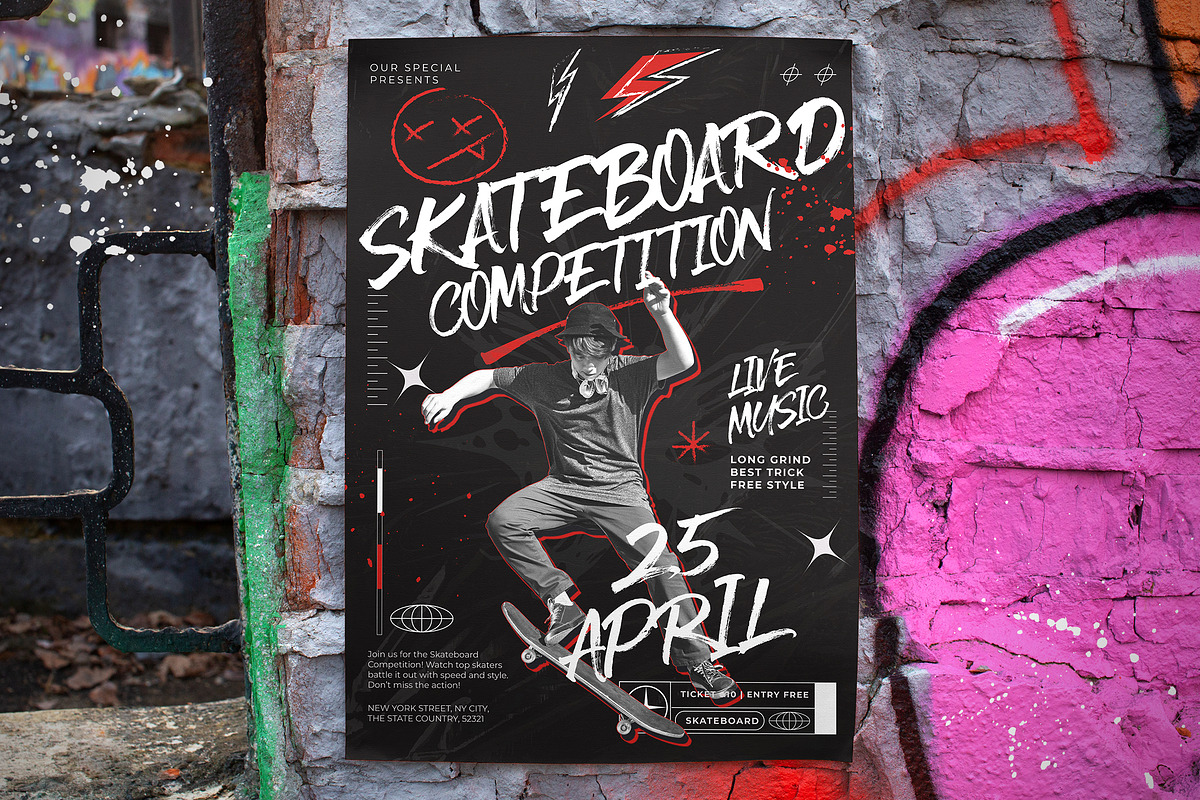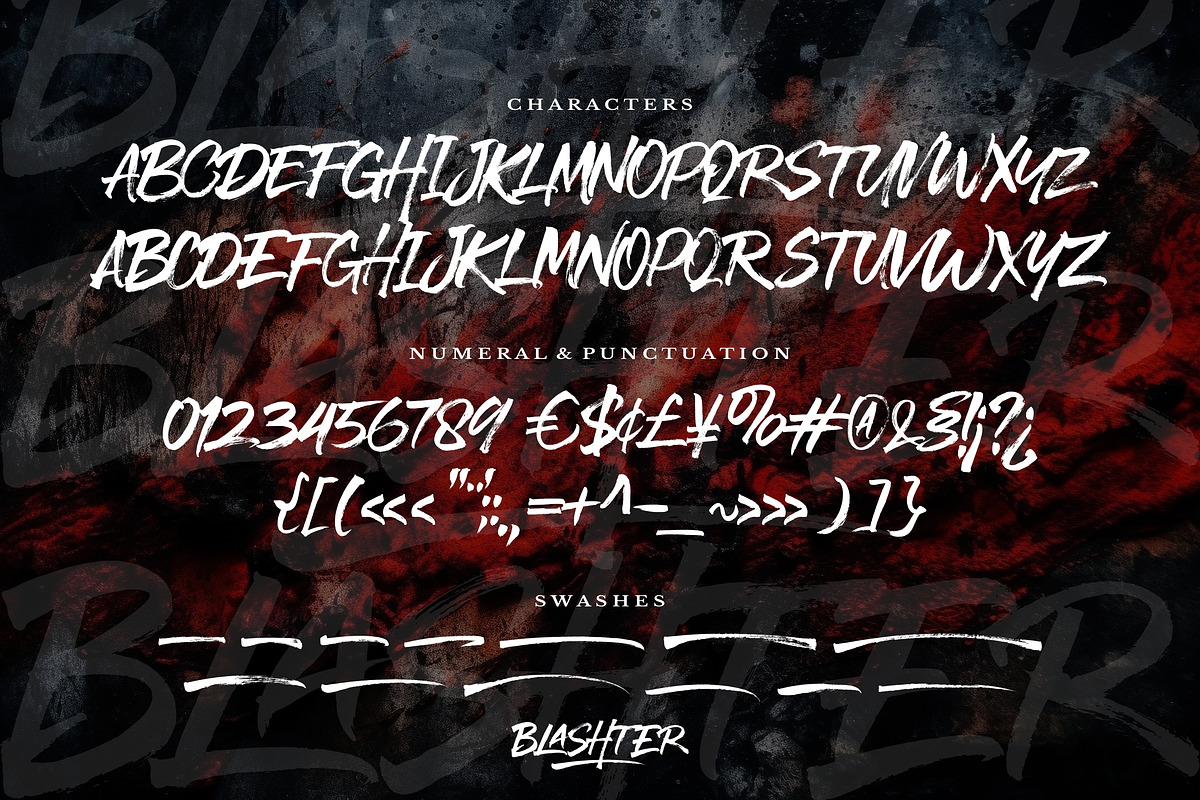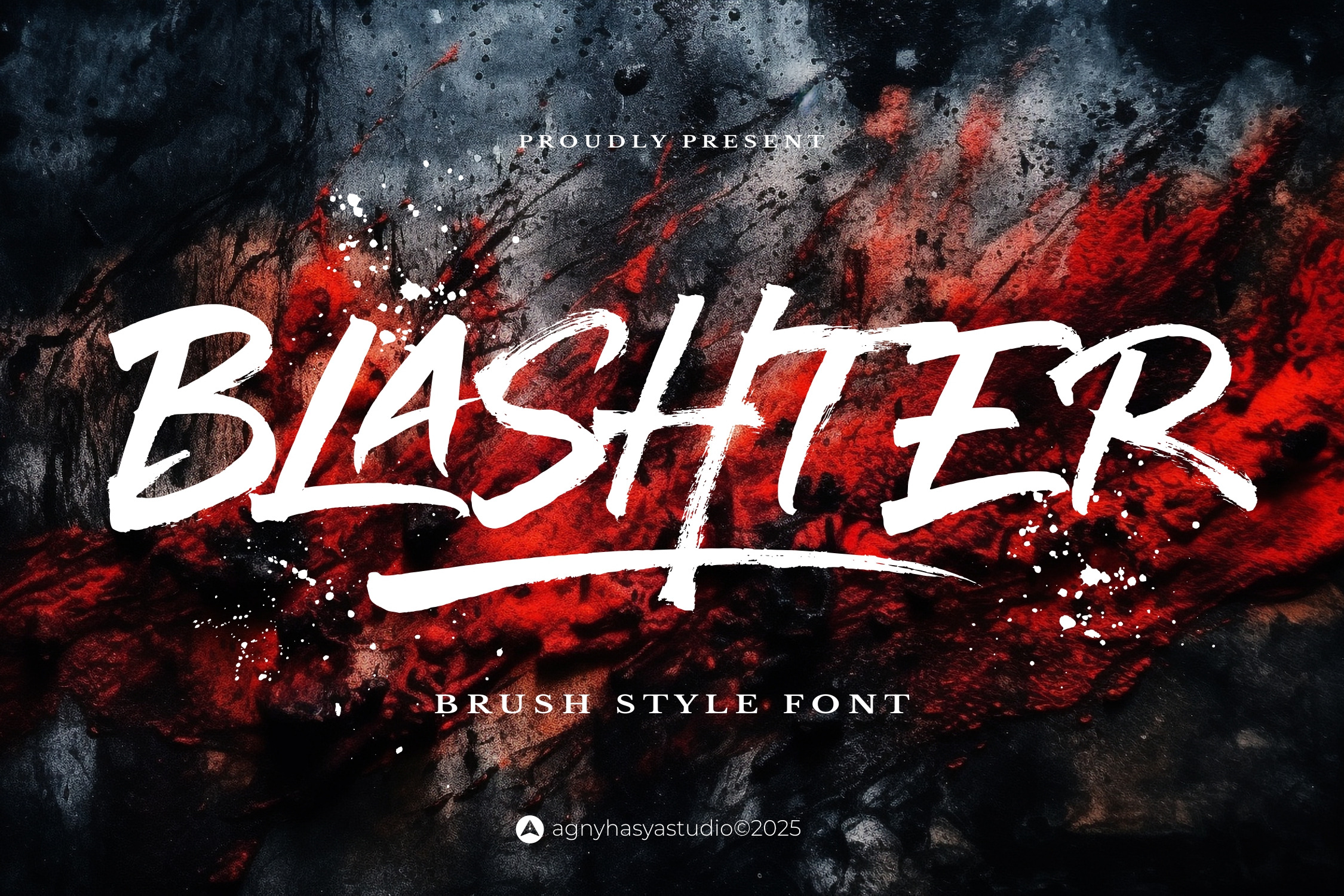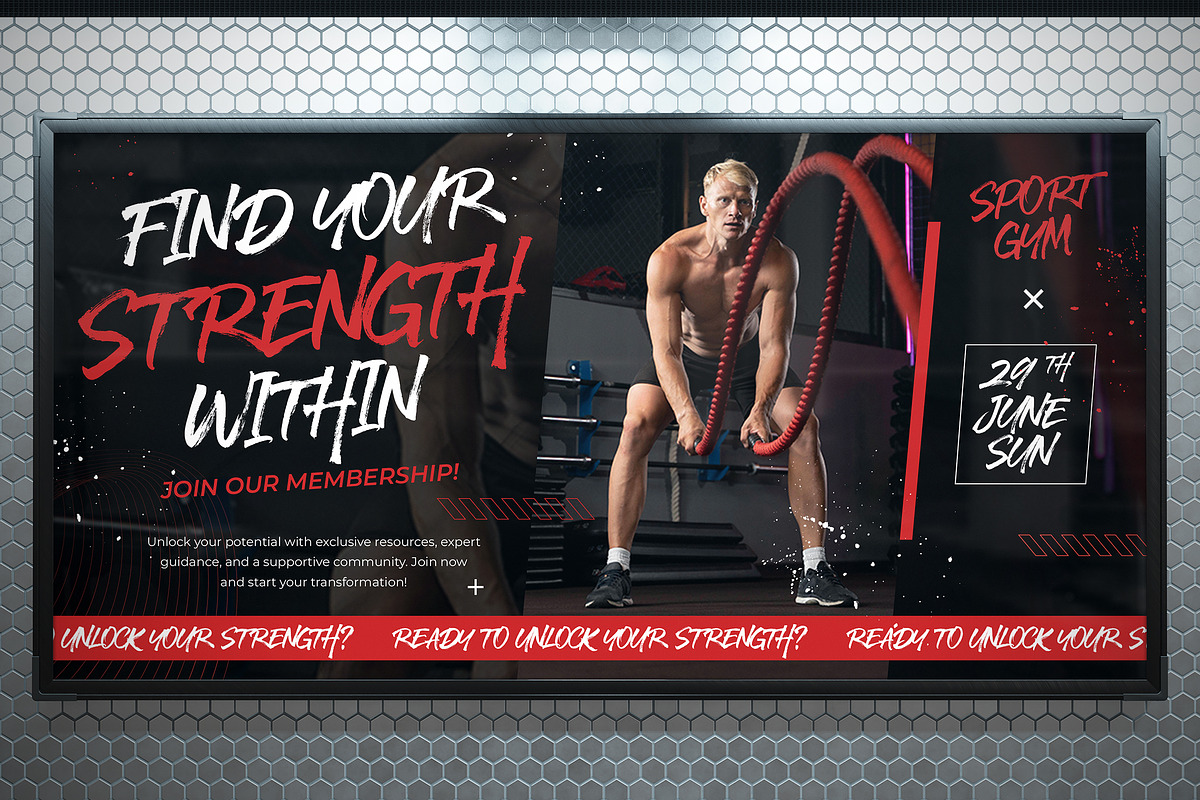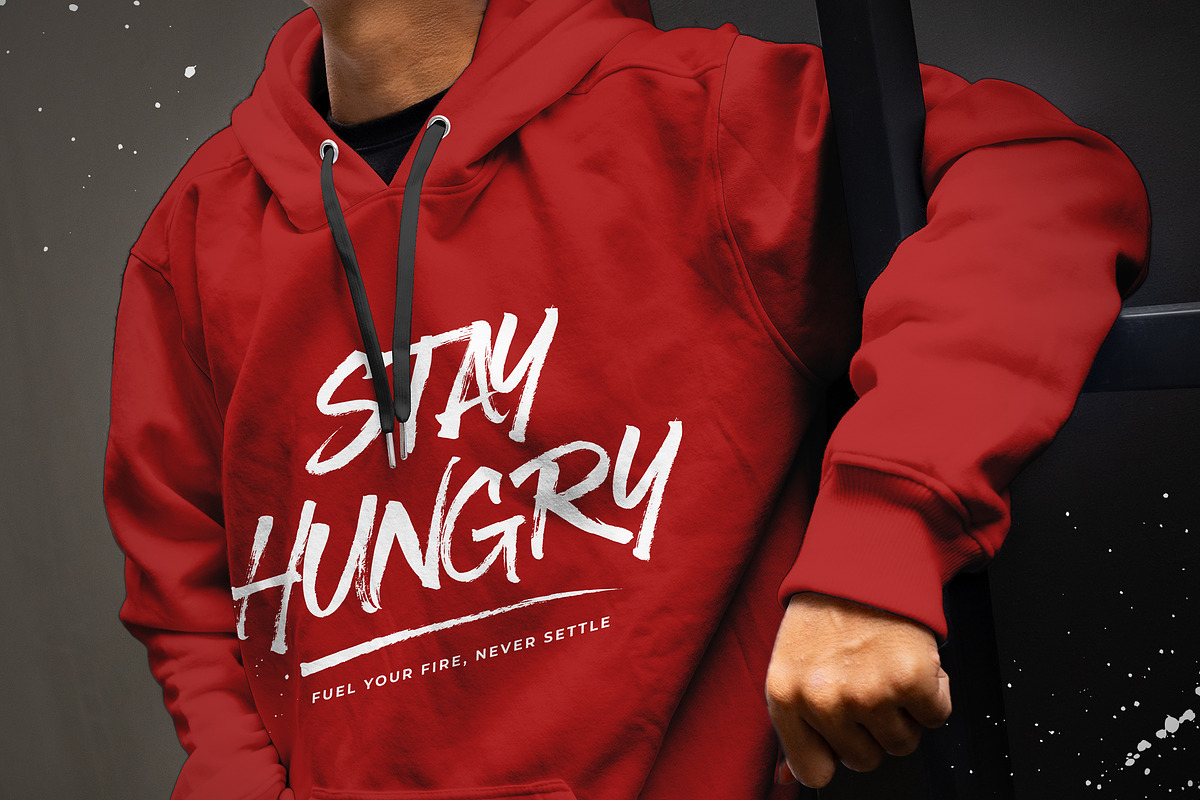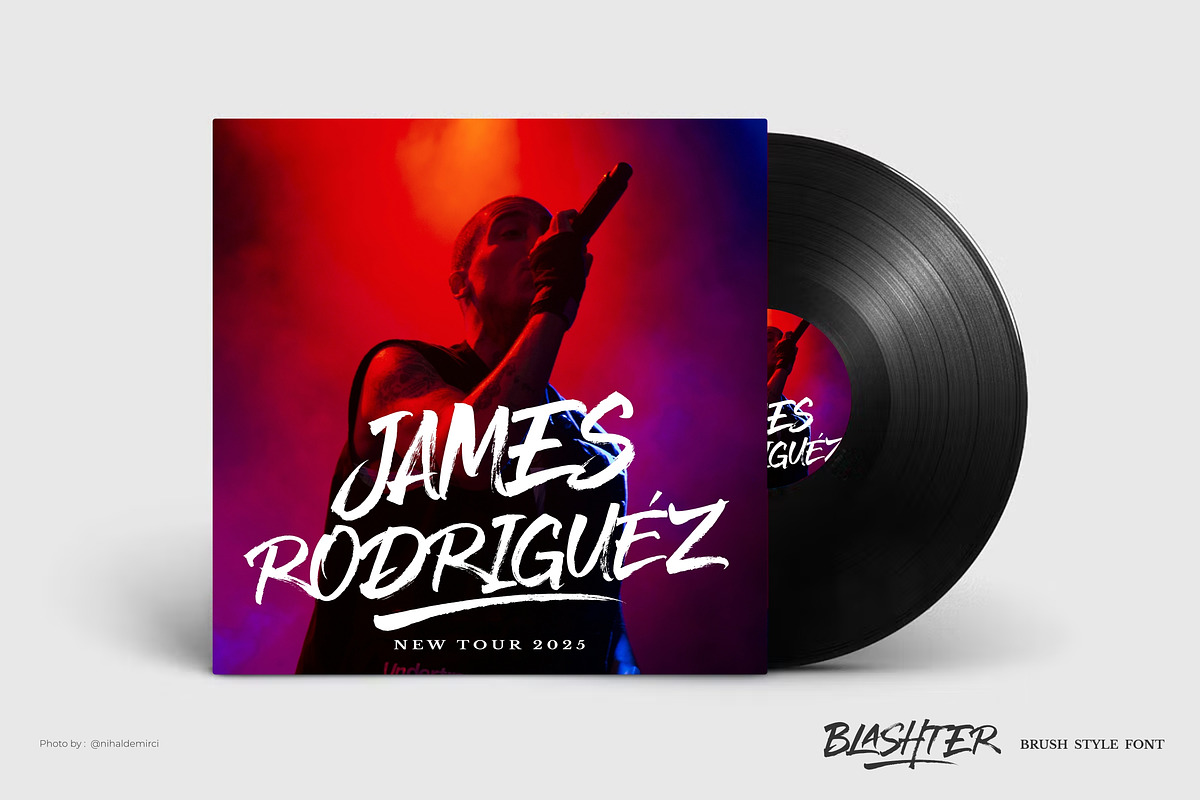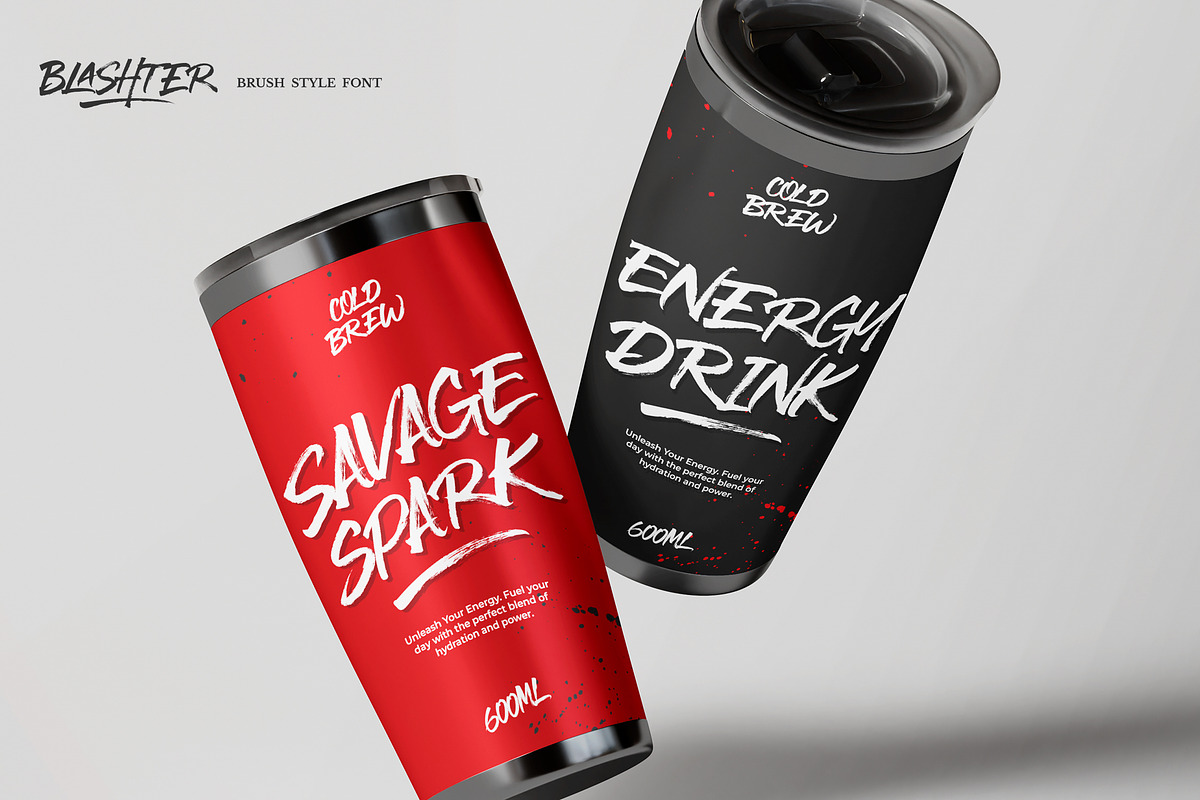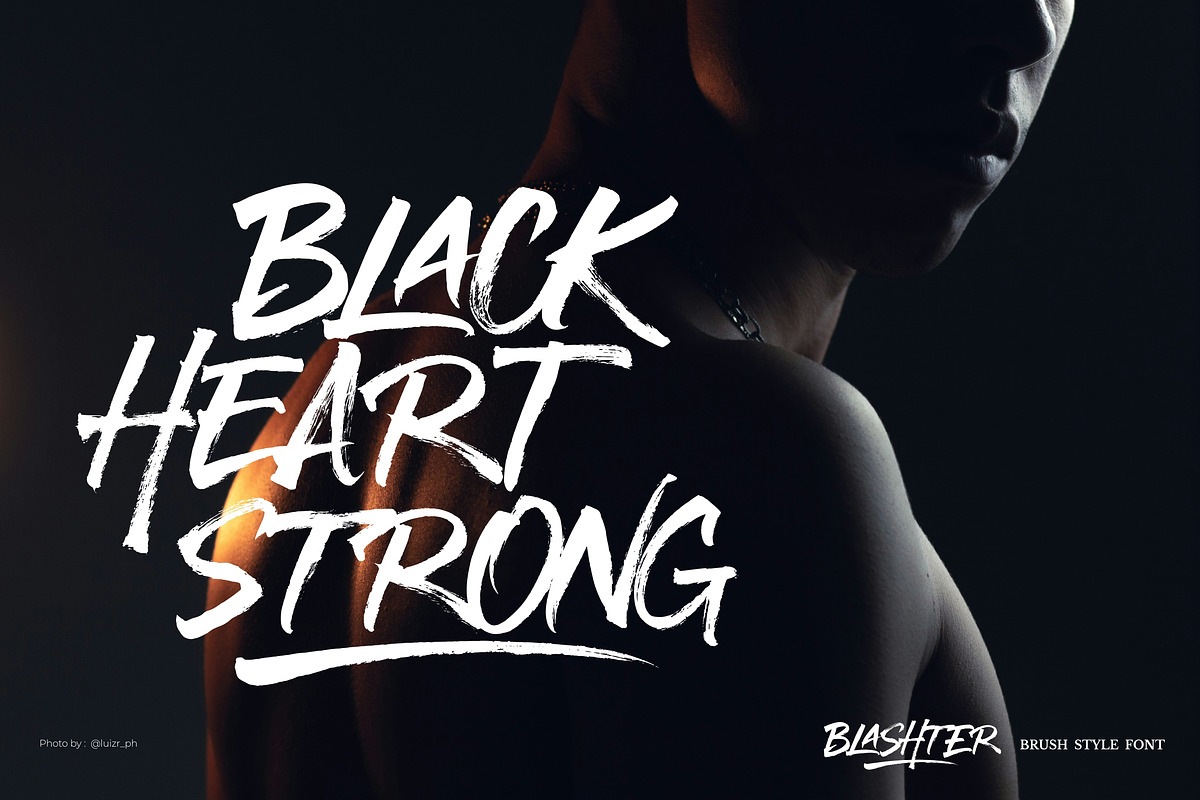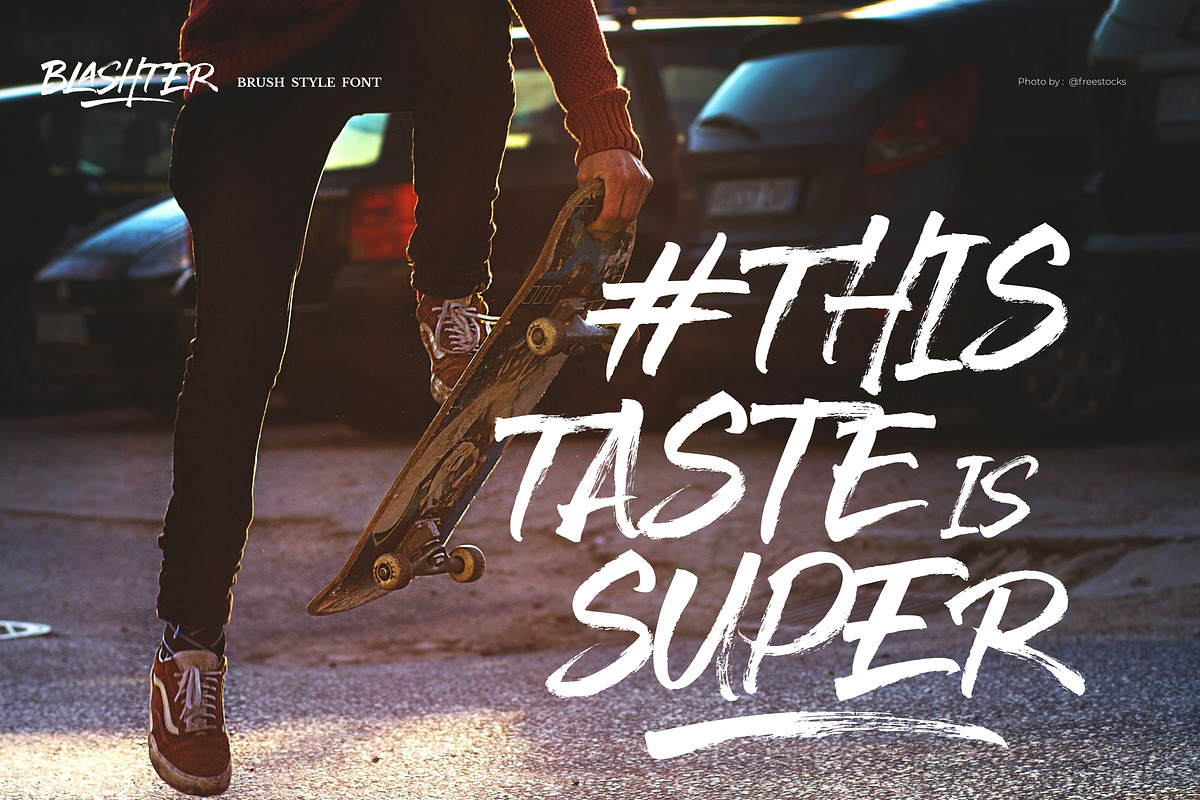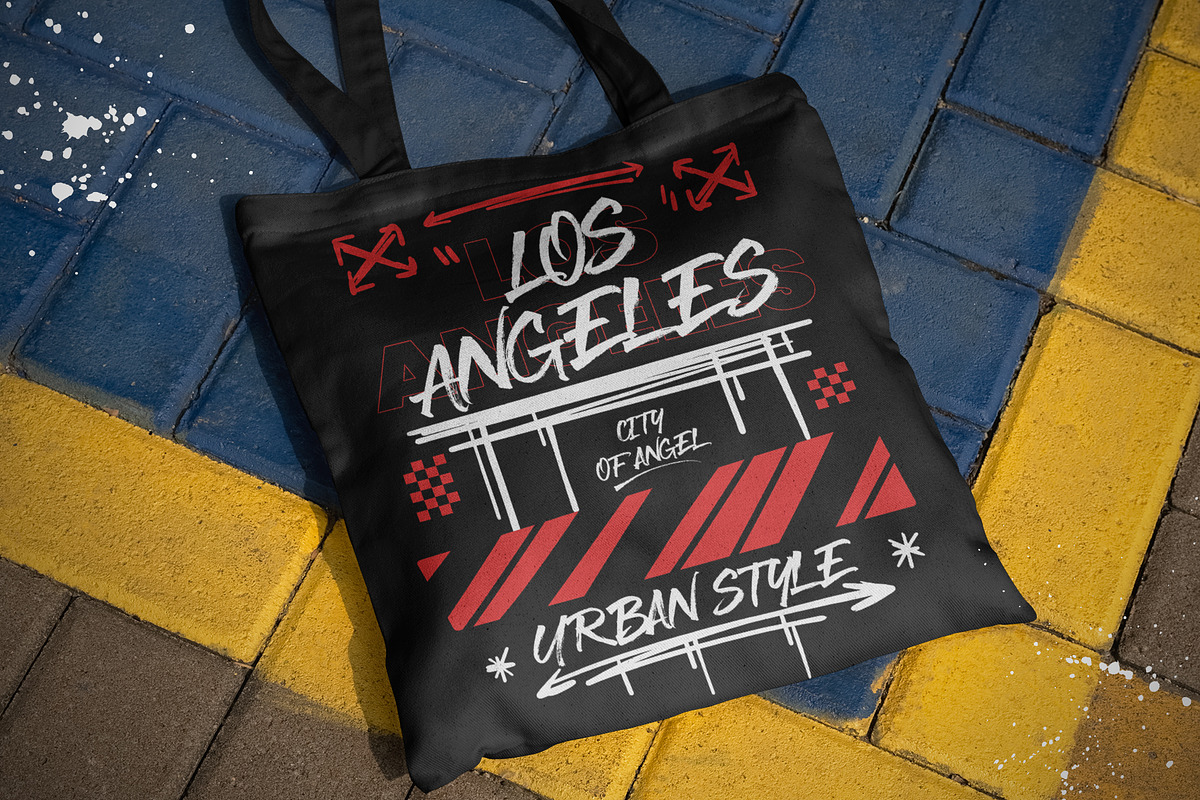
Blashter - Brush Font
Blashter is a brush script font that embodies the raw energy of street culture and the spontaneous flow of hand-drawn marker lines. With its rebellious charm and urban edge, it adds personality and impact to any design.
Full of momentum and character, Blashter reflects the essence of casualness and freestyle lettering, exuding confidence and rhythm. It also includes multilingual support, making it a go-to font for artists and designers around the world. It is perfect for projects such as logos, creative branding, posters, digital or print visuals, and more.
- Uppercase, Lowercase
- Ligatures & Swashes